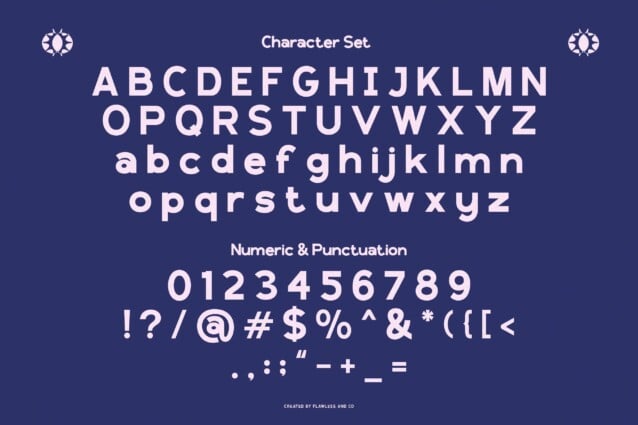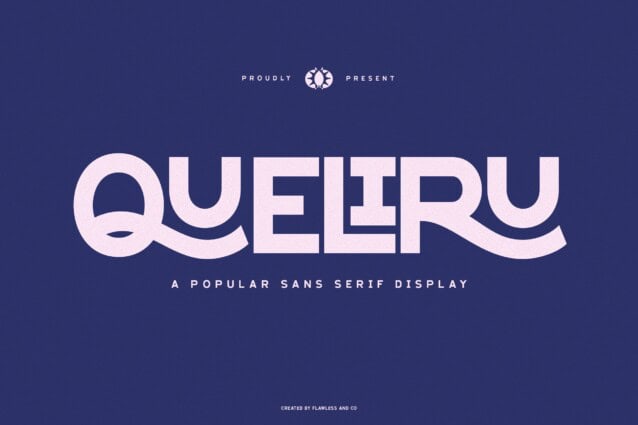
Queliru Font
Queliru Font is a typeface that combines simplicity with functionality, featuring a blend of mid-century style and modern minimalism. With its clean lines and impactful presence, this font is suitable for branding, headlines, posters, sports designs, advertising, and social media graphics. Its bold structure makes it perfect for projects that require a powerful and eye-catching look.